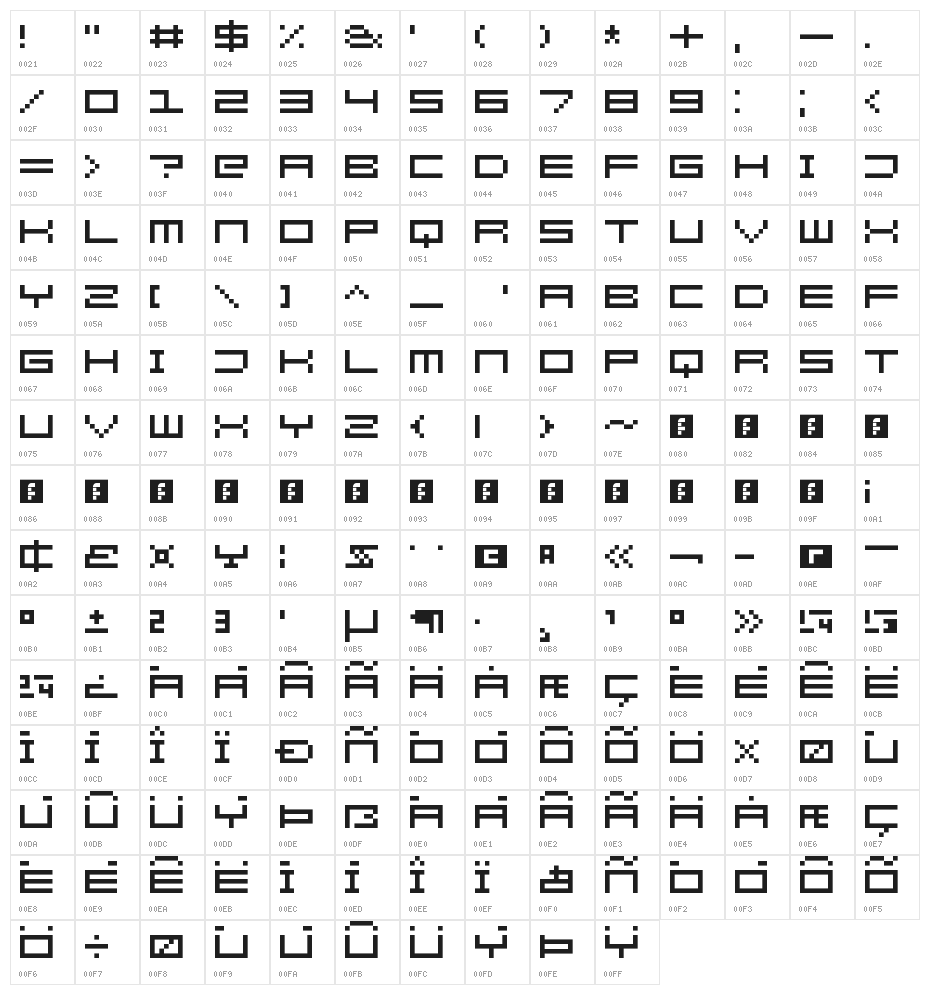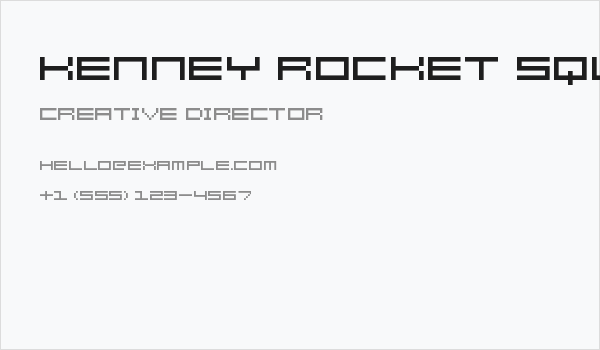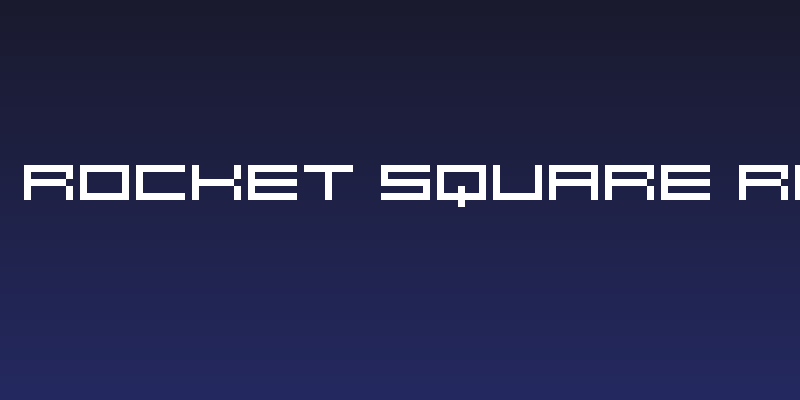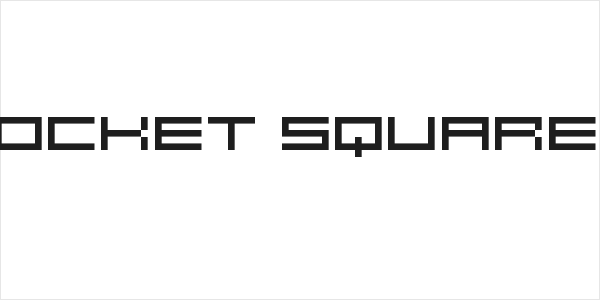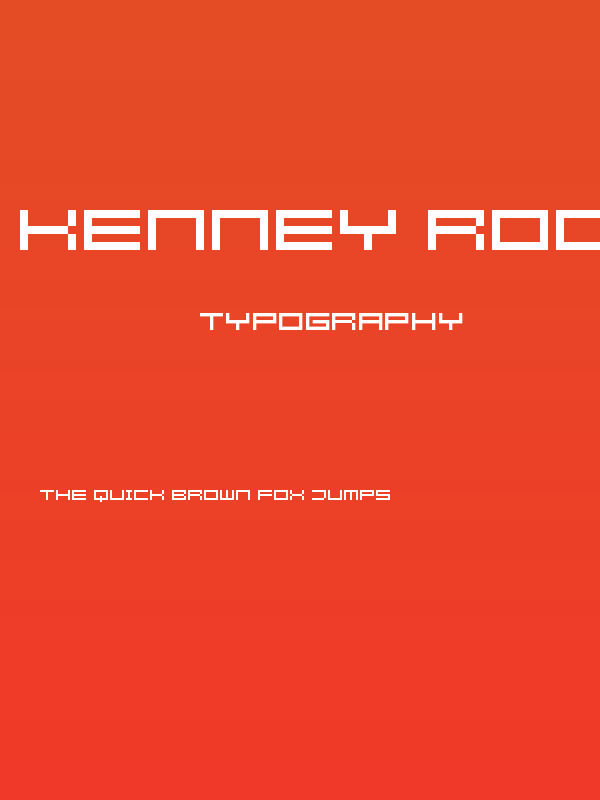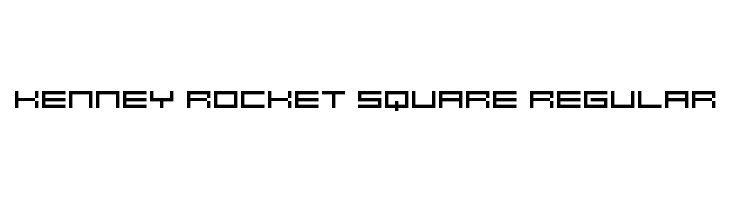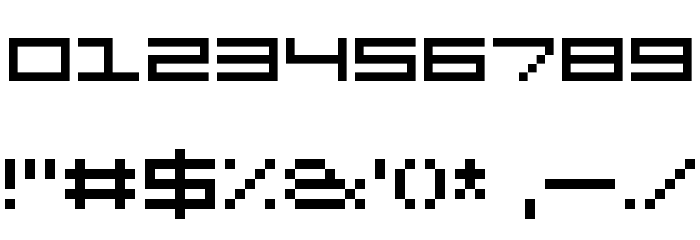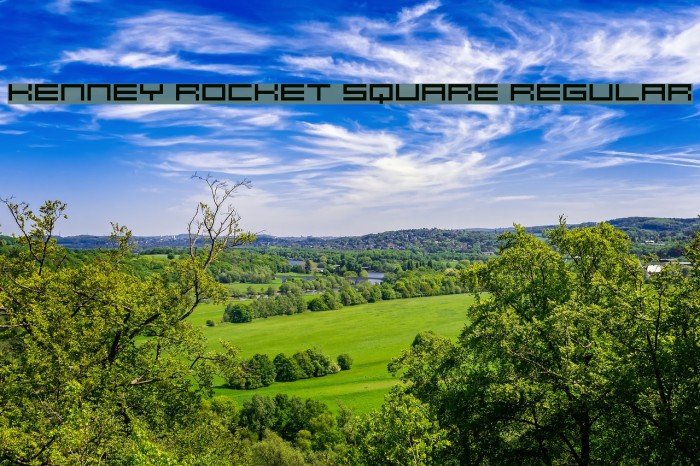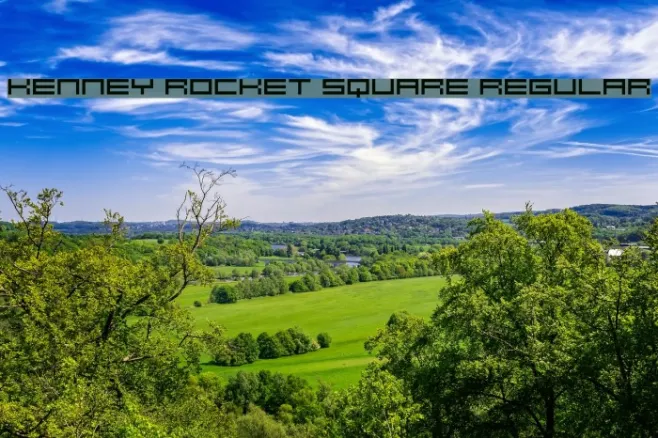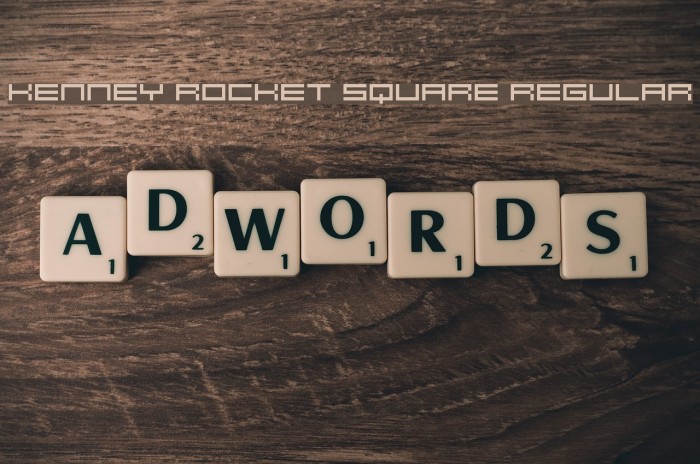
Kenney Rocket Square Regular Font
Kenney Rocket Square Regular Description
This font features a pixelated, blocky design reminiscent of classic video game typography. Each character is constructed with a uniform grid-like structure, giving it a distinctly digital and retro appearance. The uppercase and lowercase letters maintain a consistent height, contributing to a cohesive and orderly look. The numerals and special characters follow the same pixelated style, ensuring uniformity across all glyphs. The font's geometric and monospaced nature makes it ideal for projects that require a nostalgic or tech-inspired aesthetic. Its simplicity and clarity make it highly legible, even at smaller sizes.
| Use Case | Headlines, Logos, Digital displays |
| Proposed Projects | Ideal for video game design, retro-themed graphics, digital art, and tech-inspired branding. |